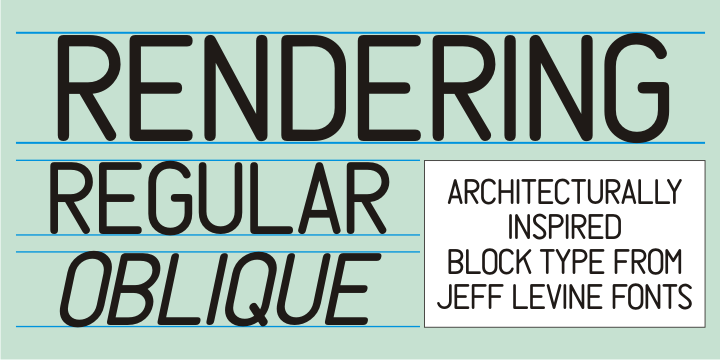
Rendering JNL Font is perfect for various applications including architectural firm branding, 3D visualization studios, digital design agencies, engineering consultancy logos, CAD software interfaces, technical drawing presentations, construction company identities, blueprint documentation, industrial design portfolios, and precision manufacturing marketing.
What makes Rendering JNL Font so exciting is its exceptional ability to bridge the gap between technical precision and creative visualization through masterfully crafted typography. This sophisticated typeface features clean, engineered letterforms with technical proportions and rendering-inspired details that evoke the meticulous process of transforming concepts into visual reality. The font's technical character and visualization-focused aesthetic make it ideal for brands that want to convey precision, innovation, and technical expertise to audiences who appreciate engineering excellence, architectural design, and digital visualization.
Rendering JNL Font family includes multiple weights and styles: Light, Regular, Medium, Bold, Black, Technical, Condensed, Extended, and precisely engineered Italic variants. Each family member maintains the font's signature technical precision while offering different levels of visual impact and stylistic flexibility for diverse engineering and visualization applications.
The Rendering JNL Font Free Download provides designers with access to a technically-inspired typeface that excels in engineering and visualization markets. Whether you're creating architectural firm identities, designing technical presentation materials, or developing precision-focused digital experiences, this font delivers the professional aesthetic needed to impress technical audiences and engineering professionals. Its technical styling and visualization essence make it particularly effective for CAD companies, architectural studios, and engineering consultancies.
Typography engineers will appreciate the precise construction and technical sophistication in Rendering JNL Font's design. The font features mathematically crafted letterforms with engineering precision, optimized spacing for technical documentation, and carefully calibrated proportions that ensure excellent readability while maintaining its technical character. From architectural blueprints to 3D visualization presentations, this typeface maintains its precision and professional appeal across all technical contexts.
For technical web designers, Rendering JNL Font provides outstanding performance in engineering digital environments and visualization platforms. The font's technical specifications are optimized for precision displays and CAD applications while preserving the clean, engineered edges that define its technical character. Its versatility makes it suitable for both static technical content and interactive visualization experiences.
Creative professionals working in architecture, engineering, 3D visualization, and technical design will find Rendering JNL Font to be an essential tool for projects requiring precise visual communication. The font's ability to convey accuracy, innovation, and technical excellence makes it invaluable for brands targeting engineering professionals and technical demographics.
Design agencies specializing in technical and engineering brands appreciate Rendering JNL Font's versatility in creating memorable precision identities.